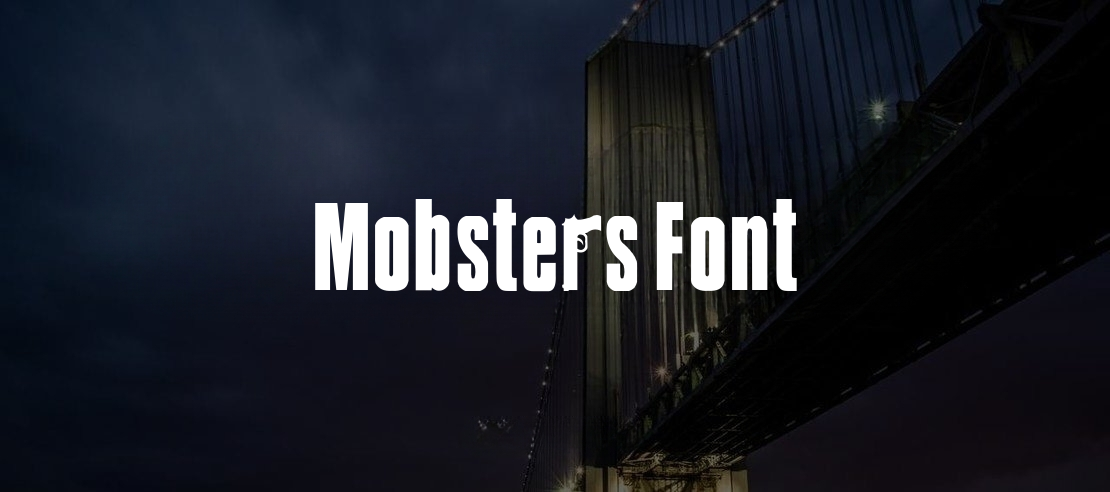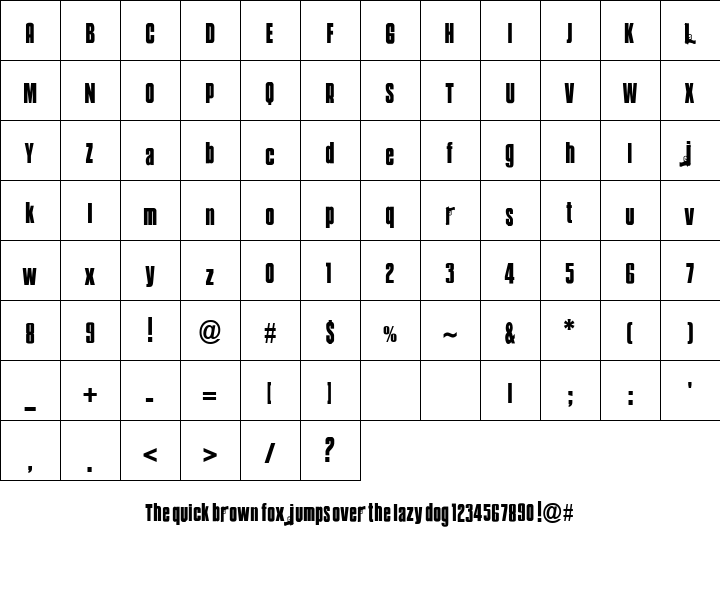
Another interesting font, Mobsters Font comes in the category of games font designed by famous designer Dennis Ludlow. The designer of the font has done a marvelous and remarkable piece of work releasing it.
The typeface can be used for all kinds of personal work. It is available in one weight that is regular. It consists of various characters, numerals, and symbols along with unique glyphs. Due to its crystal-clear visibility, you can utilize it in logos, names, games, poster cutting, brochures, tags, game titling, stickers, product design, and many more places.
The texture of the typeface is amazing and astonishingly contrasts abilities to some of the fonts from the font family for example miami heat font and overdrive sunset font. Each letter of the typeface is knitted in a beautiful design and arranged manner.
The creator of the game typeface is Dennis Ludlow. The designer of the font has done marvelous work releasing it.
Mobsters Font Family Includes
- Mobsters Regular
| Name | Mobsters Font |
| Style | Games |
| Designer | Dennis Ludlow. |
The typeface can be used in logos, games, poster cutting, brochures, tags, game titling, stickers, product design, and much more.
There are a number of typefaces that match it for example bubble bobble font and Miami Heat Font. The letters of the typefaces are knitted in a beautiful design and arranged accordingly.